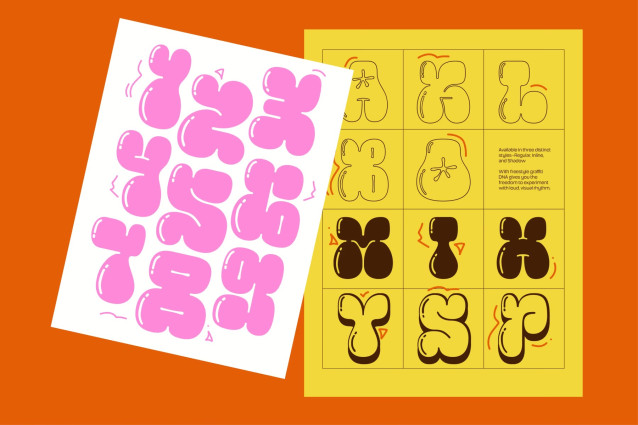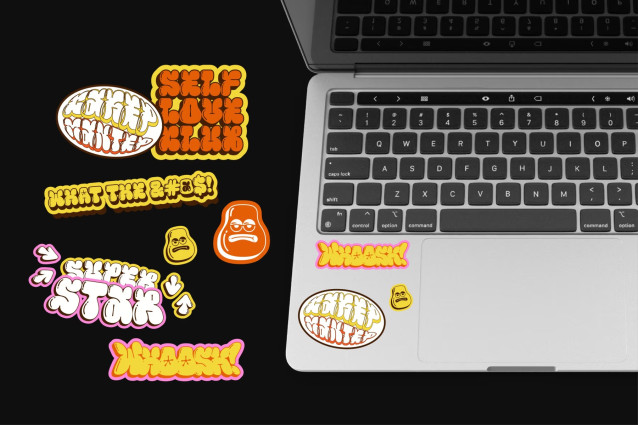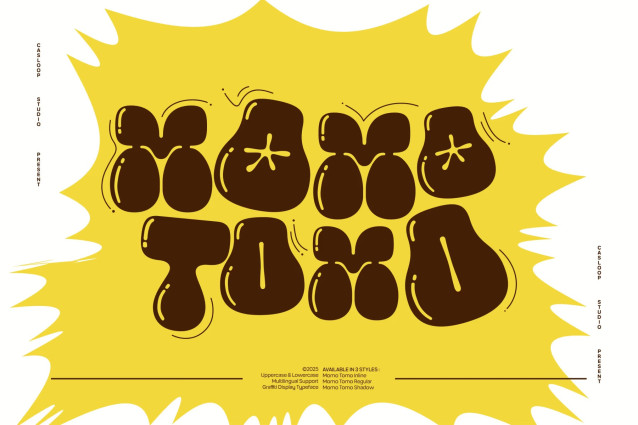
MOMO TOMO — Bubble Graffiti Font That Pops
Momo Tomo is a juicy graffiti display font full of bounce, chunky, funky, and full of visual attitude. Built with bubbly silhouettes and cartoon chaos, this typeface blends graffiti soul with comic book energy. From skate posters to sticker packs, Momo Tomo thrives in the loud, the wild, and the weird. Designed for Gen-Z culture and made for merch drops, it’s the perfect tool for rebellious branding, animated visuals, and street attitude statements.
With three bold styles — Regular, Inline, and Shadow — and loads of personality-packed alternates, Momo Tomo gives you room to explore visual rhythm and quirky letter combos. Whether you’re designing for a skate brand, zine cover, or animated TikTok reel, this font brings the juice.
Best Used For: -Graffiti-inspired logos and branding -Skateboard attitude graphics -Sticker designs & label packaging -Animated text & digital motion visuals -Pop-art editorials & TikTok-ready content -Caption Quotes:
Bubble up your branding. Go loud or go home. Graffiti soul meets pop-art madness. made to tag, slap, and sticker everything in sight.